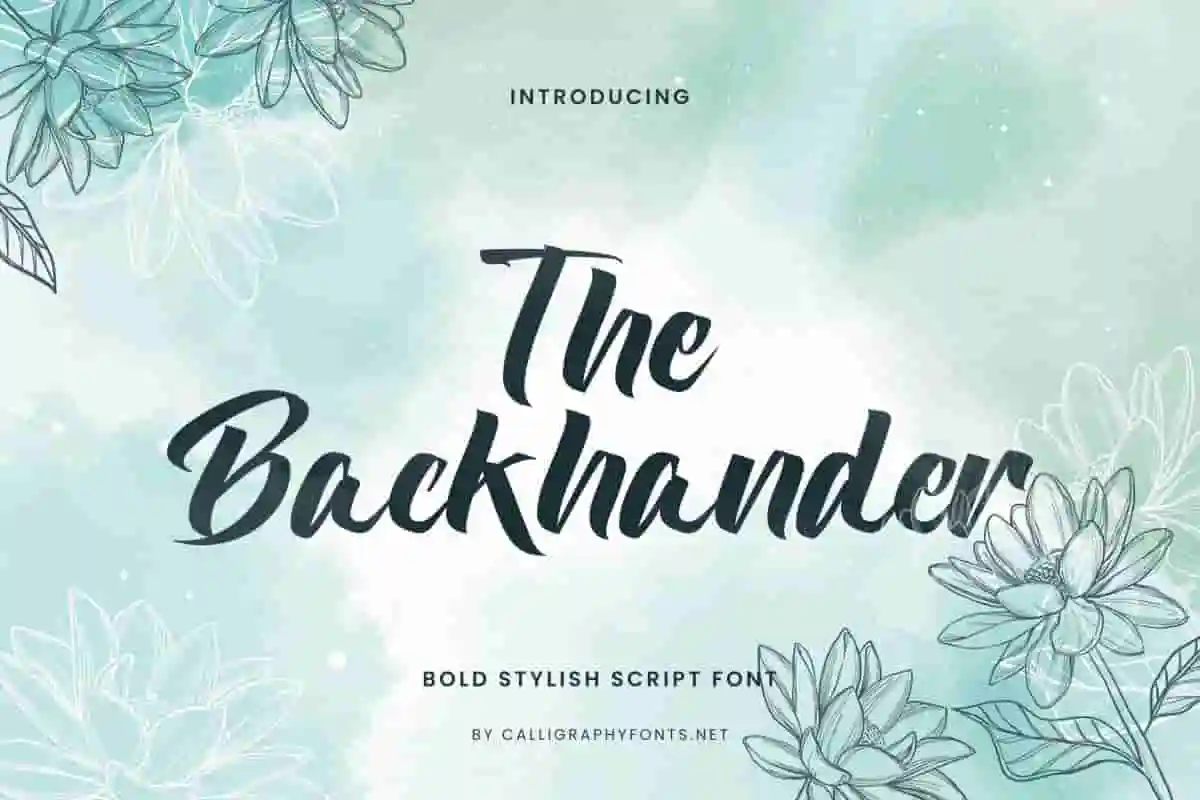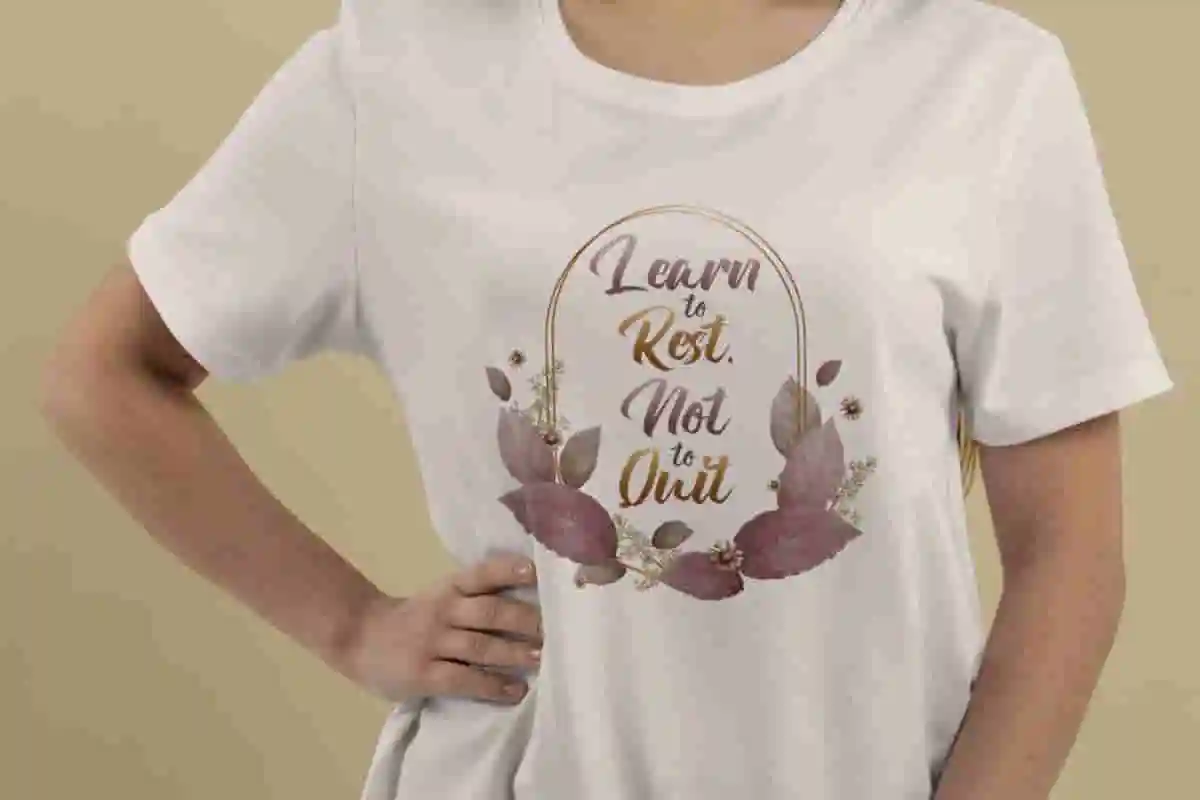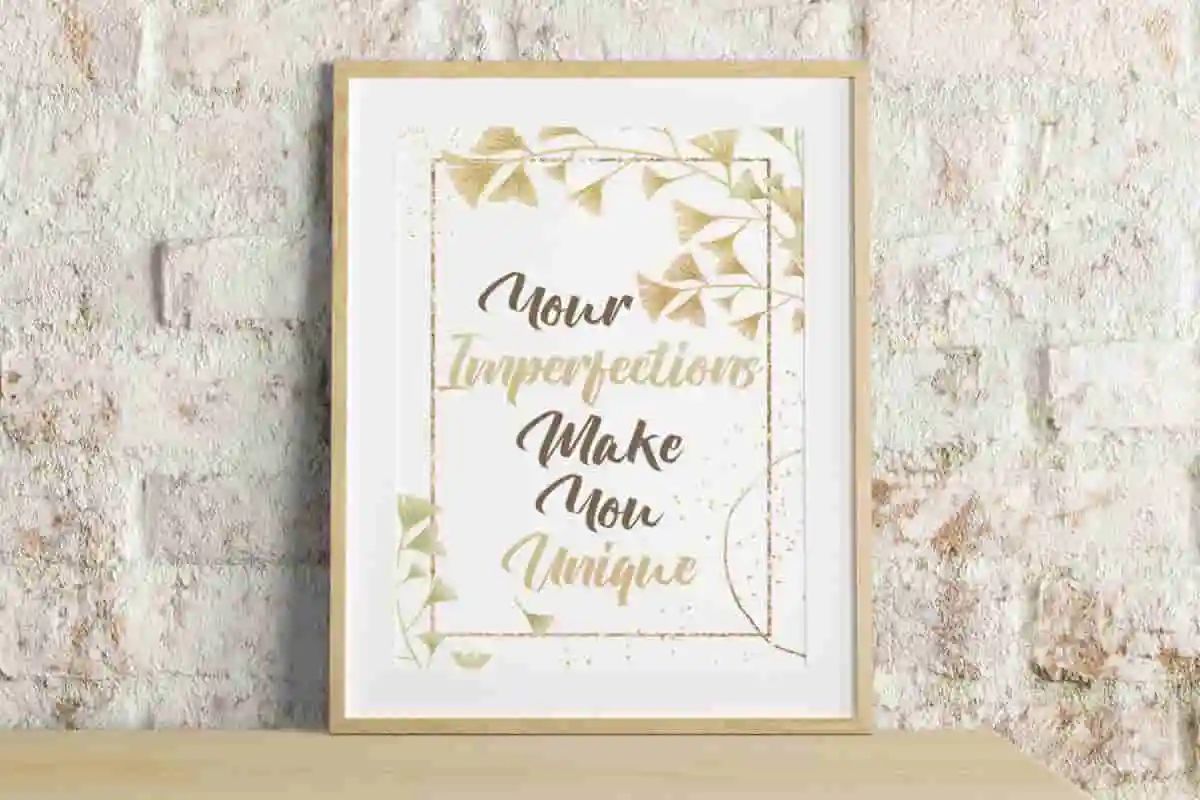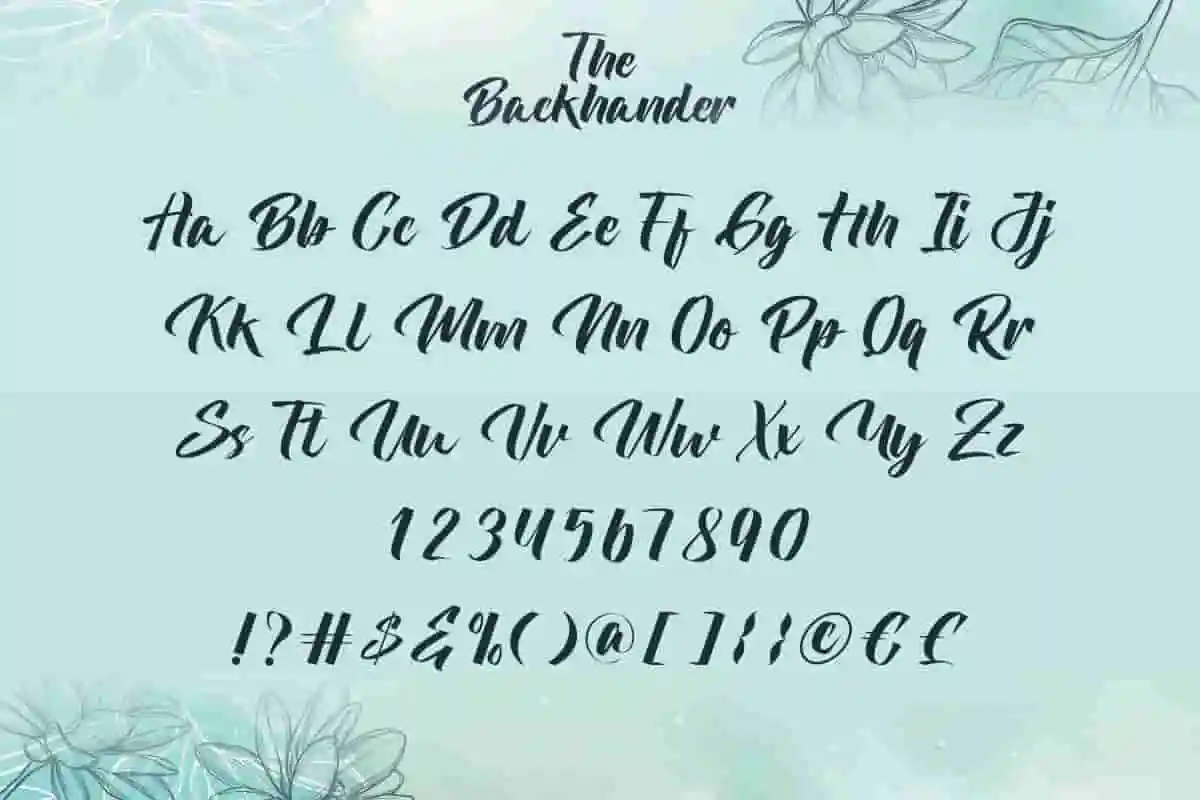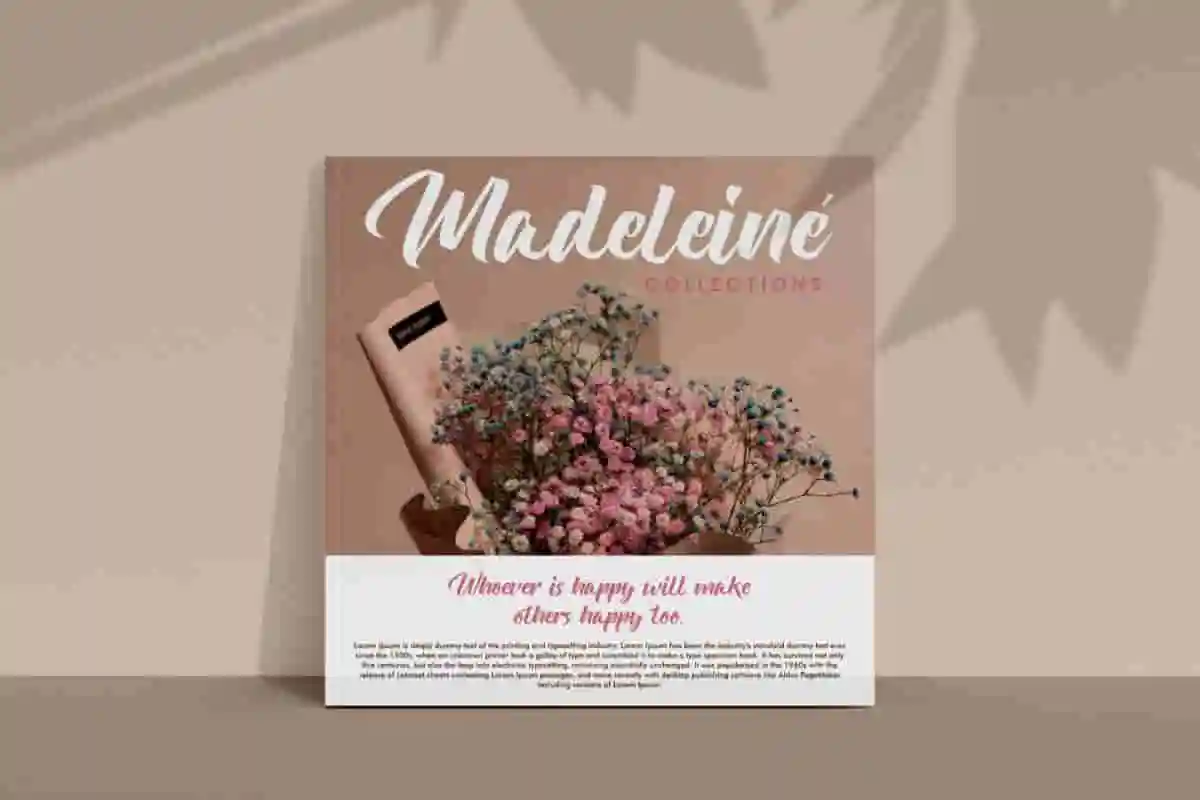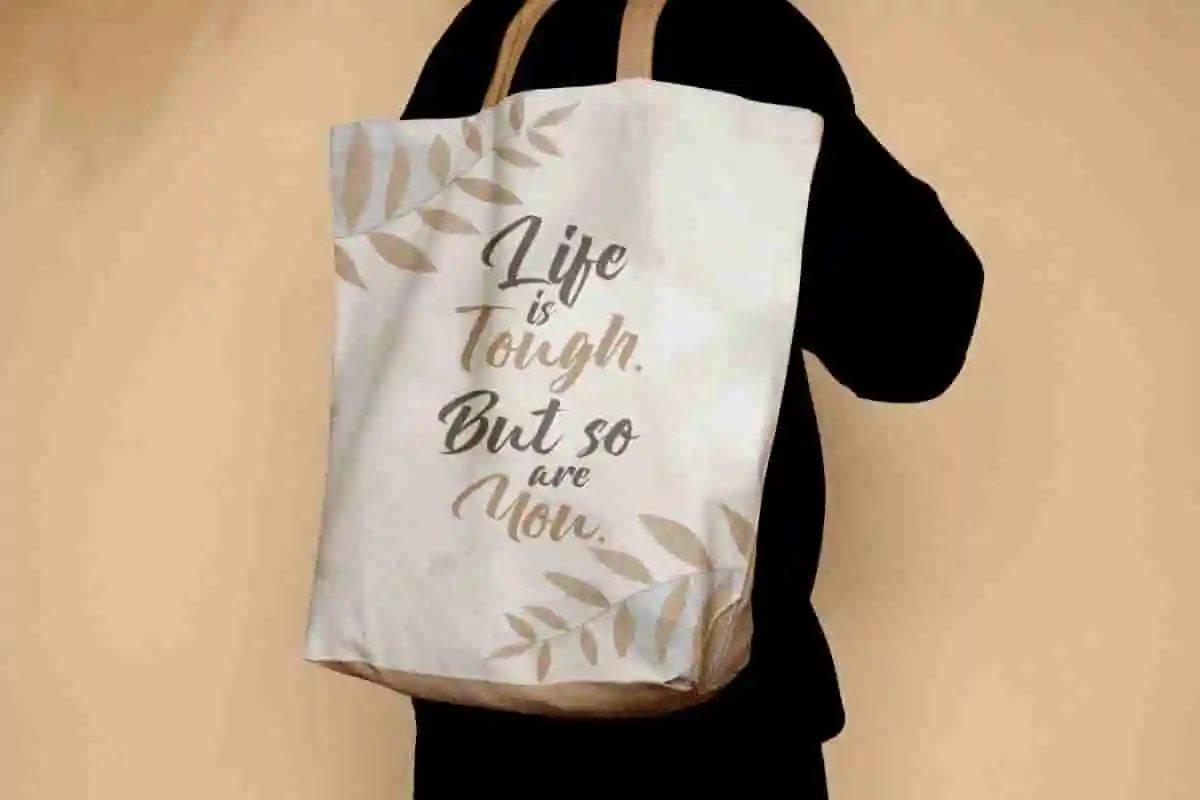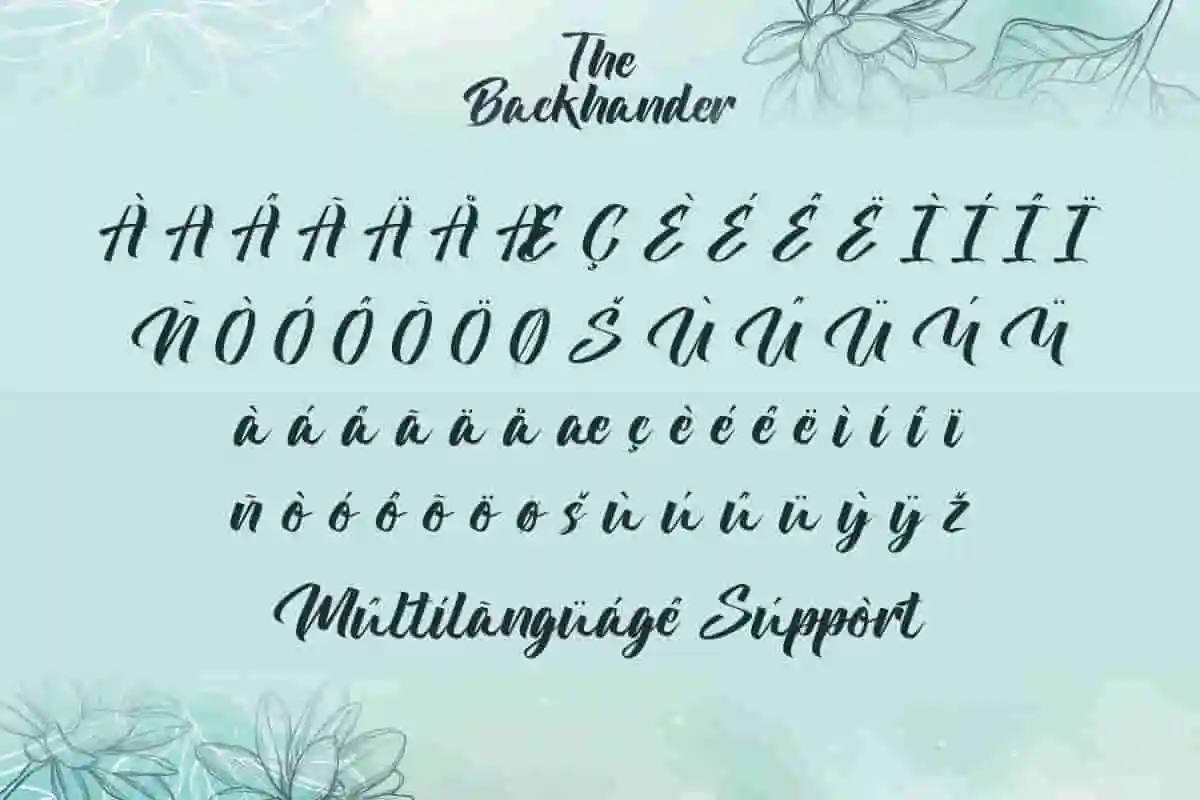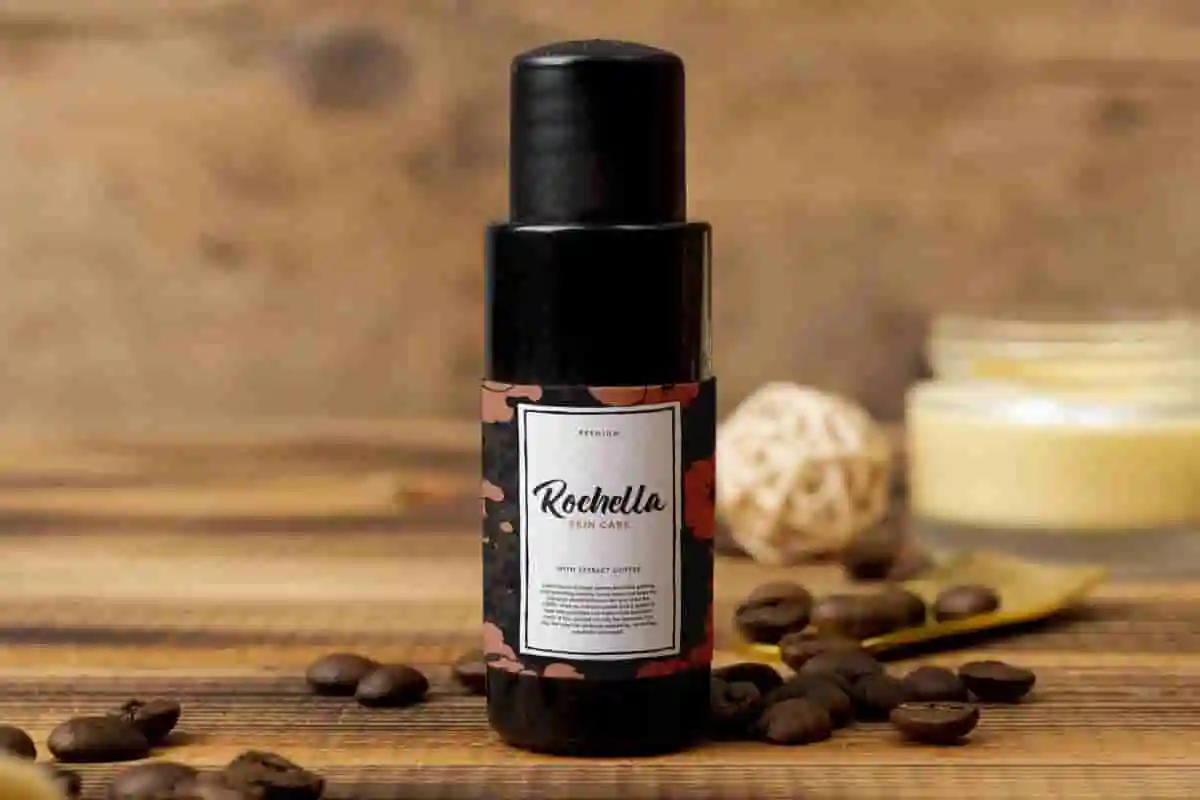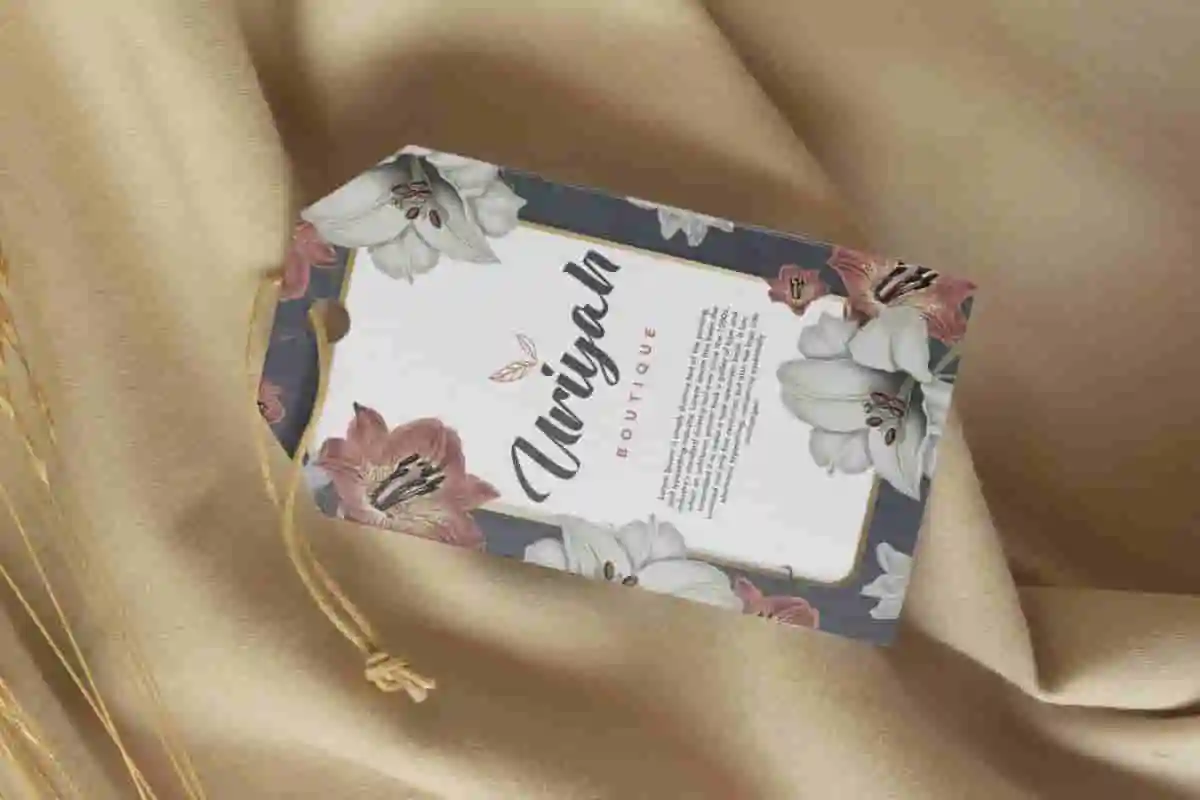
The Backhander Font
The Backhander Font is a stylish calligraphy script font from CalligraphyFonts.net that will be perfect for clothing brand, magazine catalog, price tag, quote art, salon, skin care product, and anything that requires the perfect bold look.
The Backhander Font is an elegant calligraphy script with bold stylish look, created by CalligraphyFonts. This font is perfectly thickness and easy to read that will suit any business industry, including: art gallery, spa and salon, cosmetic, fashion, florist, restaurant, and anything that requires a stylish script look.
Introducing The Backhander Calligraphy Font, a striking typeface designed to grab attention and make your creative projects stand out. With its bold strokes, modern appeal, and handcrafted details, this display font is perfect for designers, brands, and creatives who want to leave a lasting impression.
Whether you’re working on logos, posters, product packaging, headlines, apparel, or social media graphics, The Backhander Font brings an edgy yet stylish vibe to every design. Its versatile character set allows you to experiment with layouts, making your text look powerful, expressive, and memorable.
If you want your designs to convey confidence, creativity, and originality, The Backhander Font is the perfect choice. Easy to use across software platforms, it ensures your projects maintain a professional and high-quality look.
Elevate your typography game and let your message speak louder with The Backhander Calligraphy Font—the perfect combination of boldness and style.
The Backhander Calligraphy Font will be perfect for any creative projects, such as brand logo, brochure, headline, magazine catalog, product label, quote art, screen printing, and great for text fonts combined with serif type. Made with care so as to create perfection in writing and add aesthetics to every design made.
The Backhander Calligraphy Font comes with a full set of Uppercase and Lowercase Basic Characters, Number, a large range of Punctuation and Symbol, Swoosh, and also supports multilingual characters. Ready to use both on Windows machine or Mac with simple installations. It’s tested to work well in the Adobe Apps (Illustrator, Adobe InDesign, Adobe Photoshop) CorelDraw, and others. PUA Encode Characters means you can access all the glyphs and other characters easily – Fully accessible without additional design software.